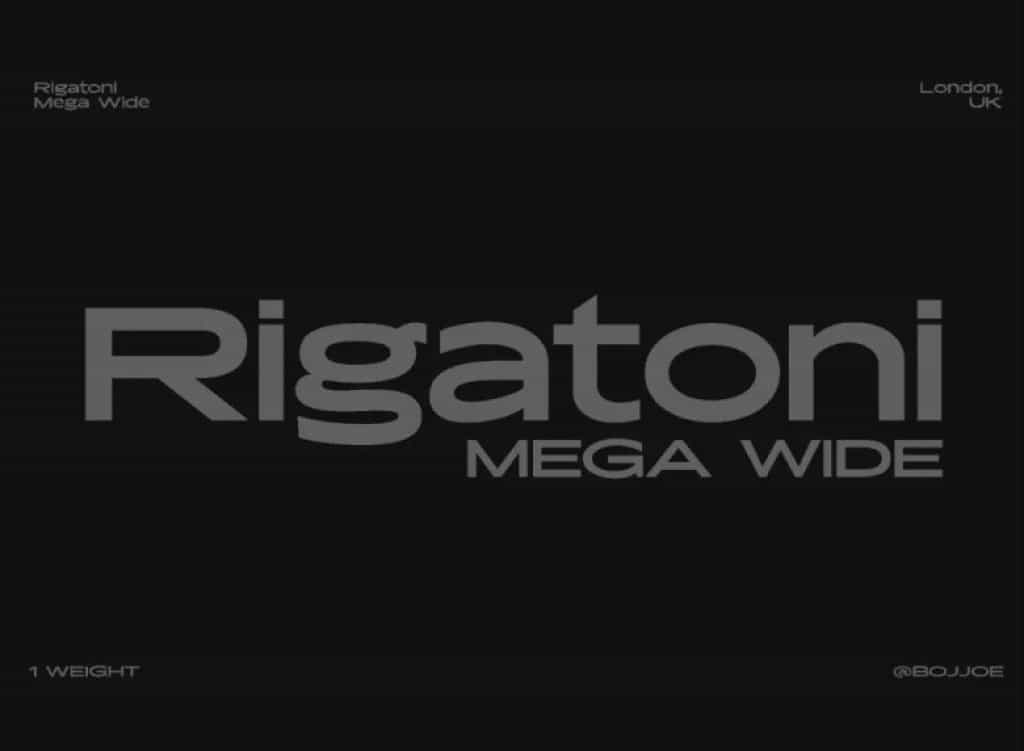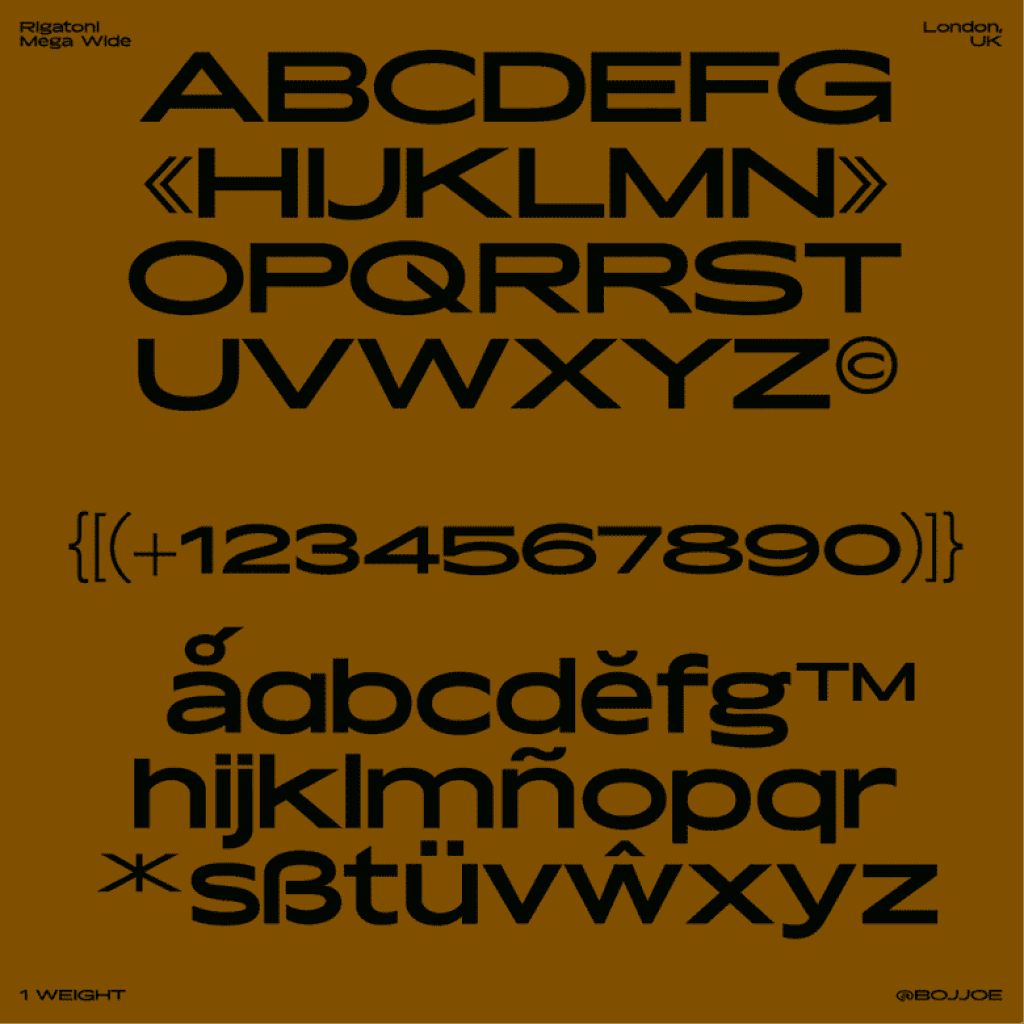
Rigatoni can be described as an extended display in Grotesk with a sans serif font that creates an aggressive style in all caps, balanced out by its soothing lowercase fonts. Although designed specifically for web pages and posters, it can easily adapt to many settings and applications.